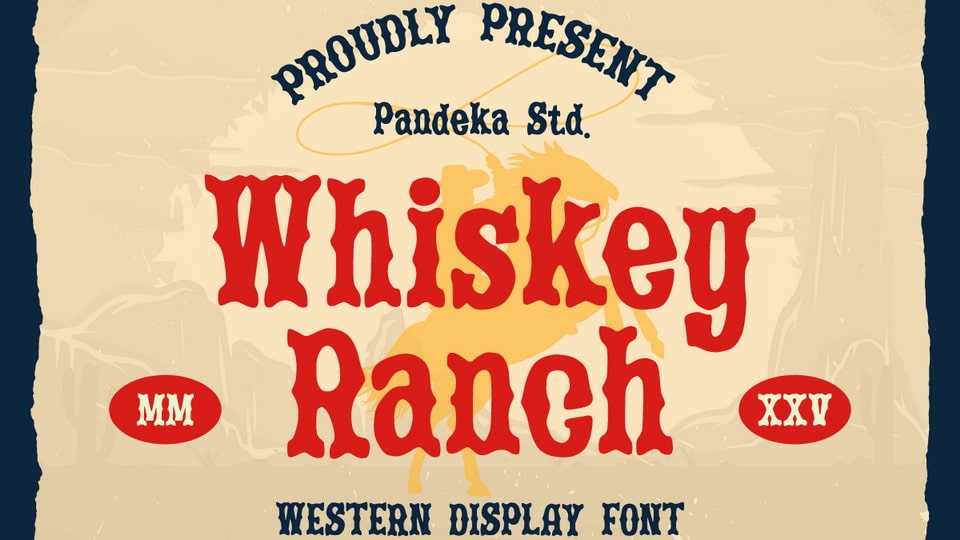
Download Whiskey Ranch font, a bold serif typeface with a rustic, vintage aesthetic, perfect for western-style branding, cowboy-themed designs, signage, packaging, and classic typography.